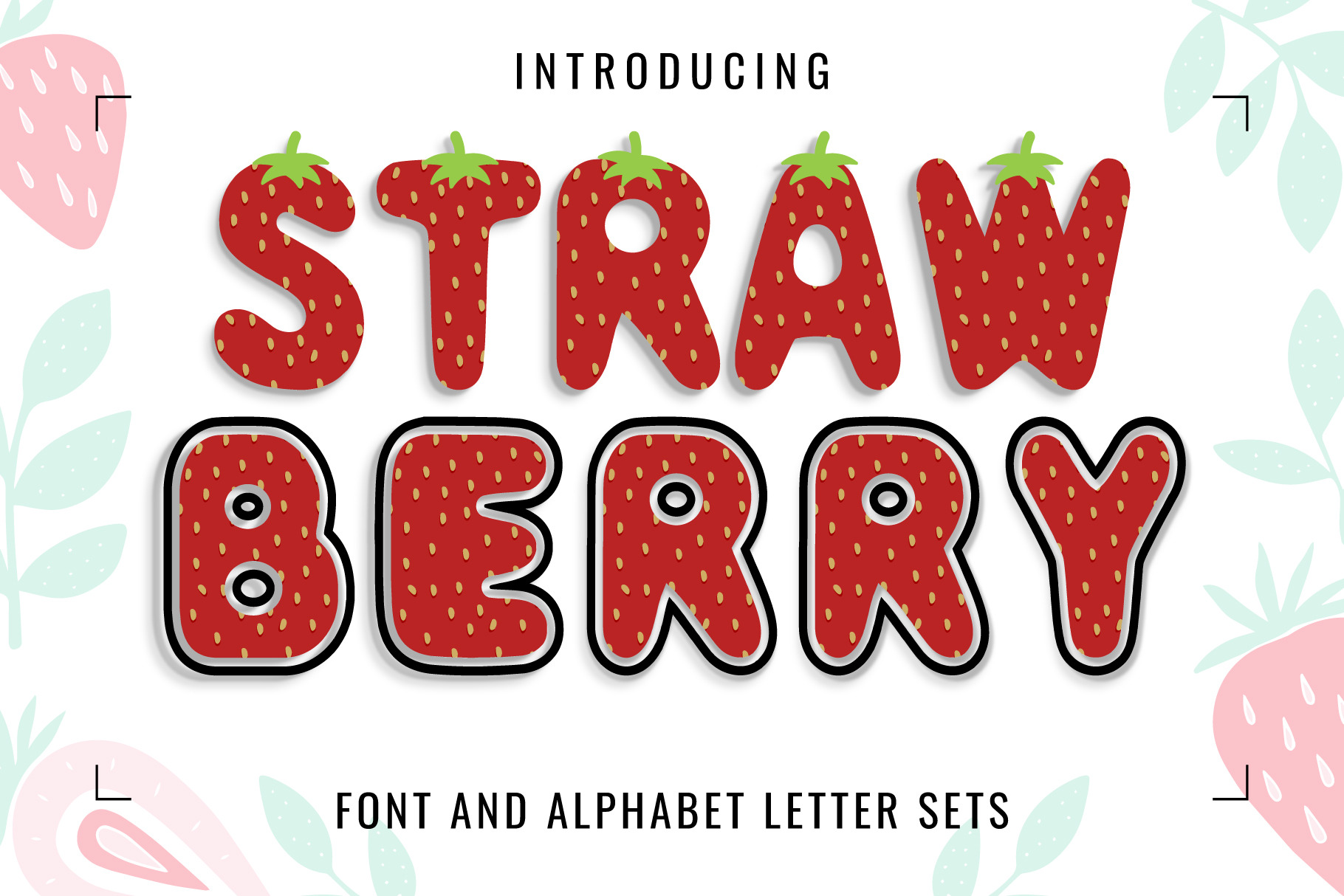
Strawberry Font
Strawberry is a color font – Designed in the style of strawberry fruit. Looks bright and cute. Each font letter is creatively designed to feature a Strawberry pulp motif. Fall in love with its authentic feel and use it to create gorgeous invitations, beautiful stationary art, eye-catching social media posts, and cute greeting cards. Add this beautiful display font to each of your creative ideas, and notice how it makes them stand out.
- 2 Color font sets.
- This entire font is capitalized.
- Letters: A B C D E F G H I J K L M N O P Q R S T U V W X Y Z.
- Numbers: 0 1 2 3 4 5 6 7 8 9.
- Excluding punctuation.